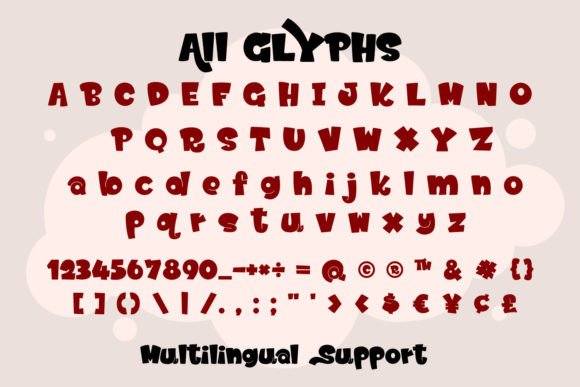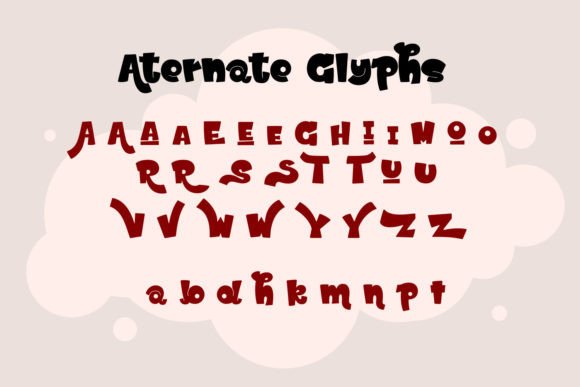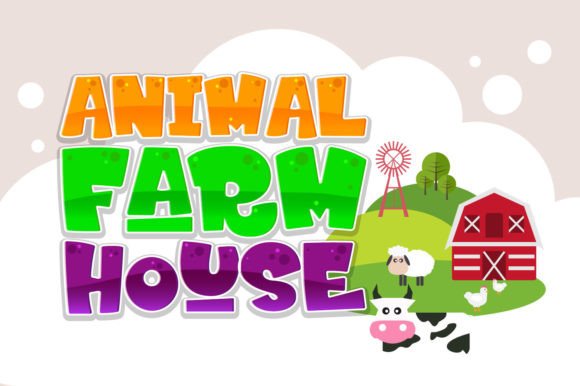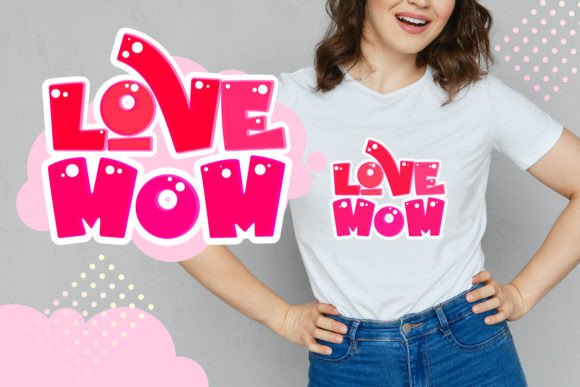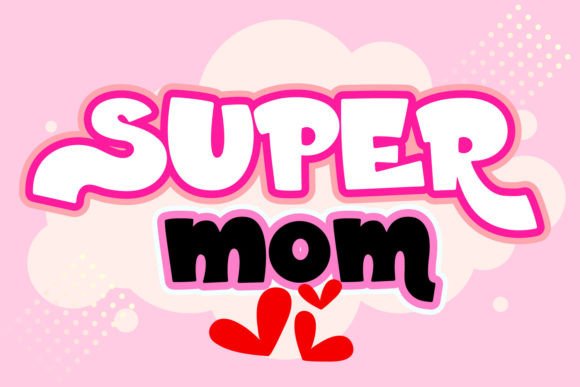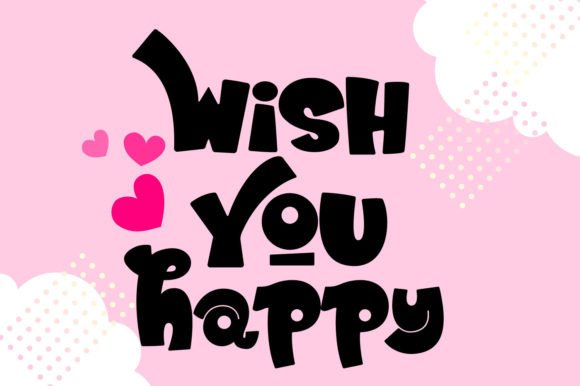
Introduction to Milk Tea Font Font
Fonts play a crucial role in design, and the Milk Tea Font font is a typeface that brings both character and versatility to any project. Whether you’re working on a branding project, a website, or a print design, the Milk Tea Font font offers a unique style that can elevate your work.
Milk Tea is a playful and quirky display font.
No matter the topic, this font will be an incredible asset to your font library, as it has the potential to elevate any creation This font is PUA encoded which means you can access all the glyphs and ligatures with ease.
The Milk Tea Font font is more than just a typeface – it’s a design tool that helps you communicate your message with style and clarity. Its unique character set and versatile design make it suitable for a wide range of applications, from elegant invitations to bold headlines.
With its carefully crafted letterforms and balanced proportions, the Milk Tea Font font ensures readability and visual appeal across all mediums.
The Milk Tea Font font stands out with its unique design, exceptional readability, and versatility across various design applications.